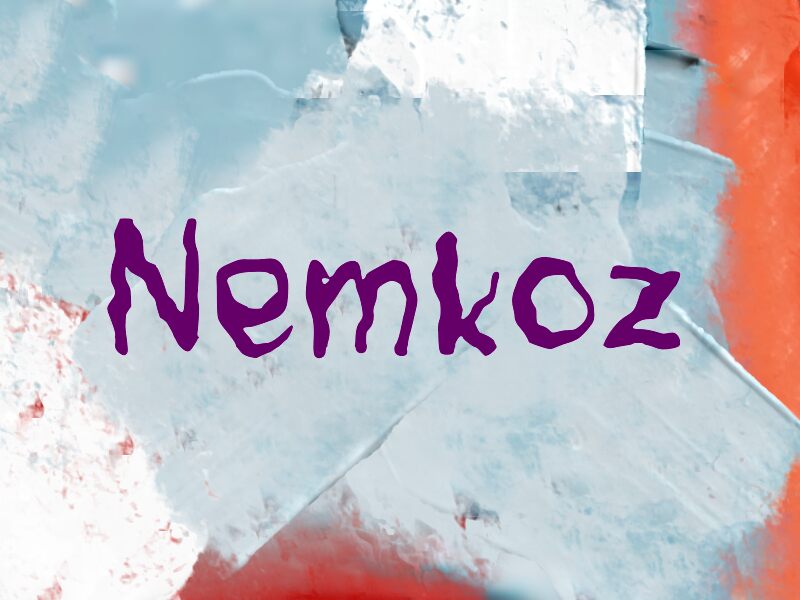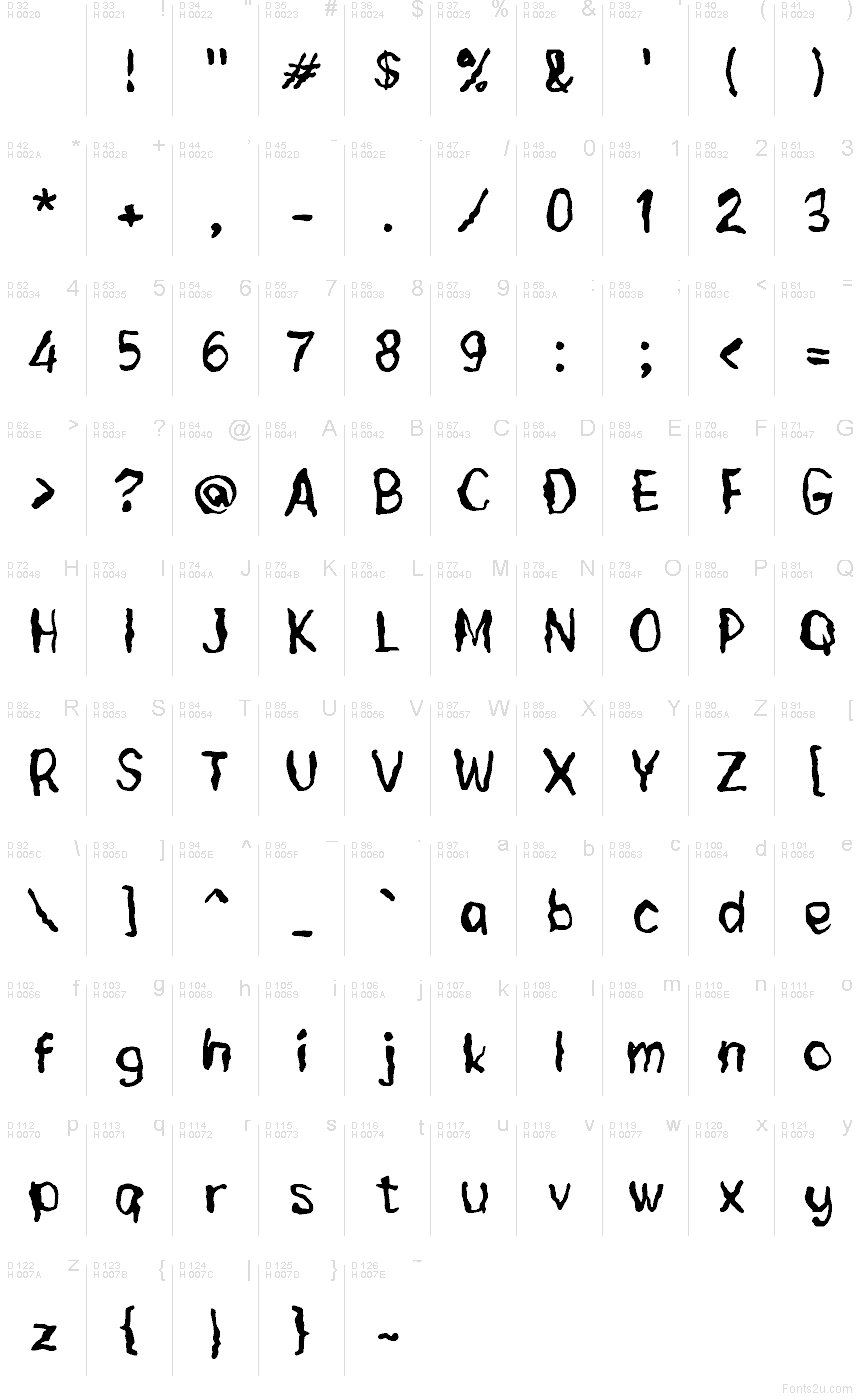
Nemkoz font by wepfont.com is a free distorted display typeface that looks like it’s been scratched, melted, and dragged across the page. Its inky, irregular shapes and wobbling strokes give every word a raw, uneasy energy-like titles scrawled on a haunted VHS tape or a glitching screen. The letters cling to each other with uneven spacing, creating a dense, claustrophobic texture that instantly sets a dark, offbeat mood.
Using Nemkoz, this free font shines on horror posters, Halloween invitations, underground zines, grunge band artwork, creepy game titles, and eerie YouTube thumbnails. Set it large so the warped curves and blobby edges really show, and pair it with a clean, neutral sans serif for body text to keep everything readable while Nemkoz handles the chaos.
Nemkoz